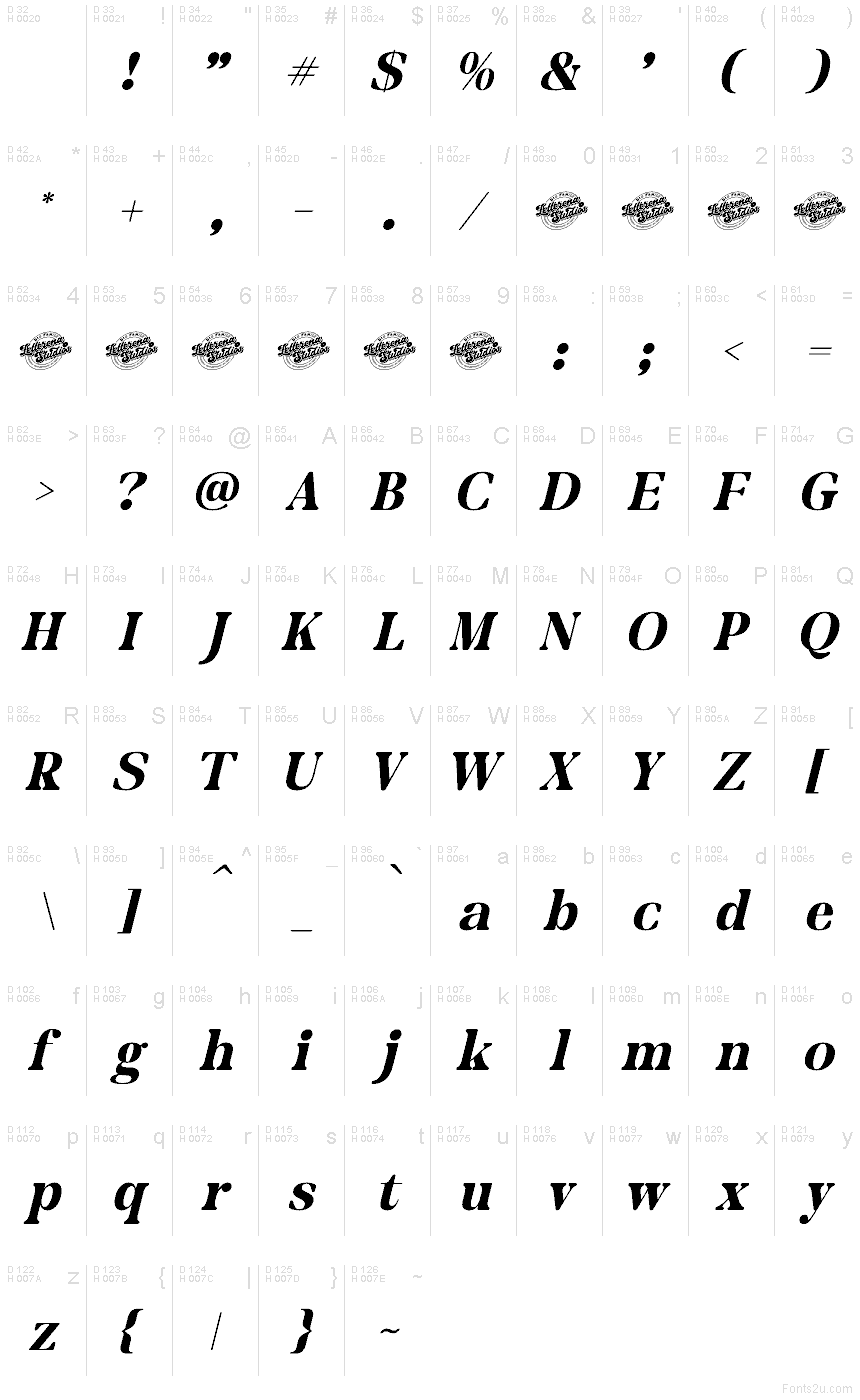
Merifto DEMO VERSION Italic
Merifto Italic font is the creation of Storytype Studio and part of the Merifto family. The contrasting bold font carefully integrates classic and modern styles to give a professional feel in its use. The combined characteristics genuinely remind us of traditional serif typefaces, yet they feature all new glyphs.